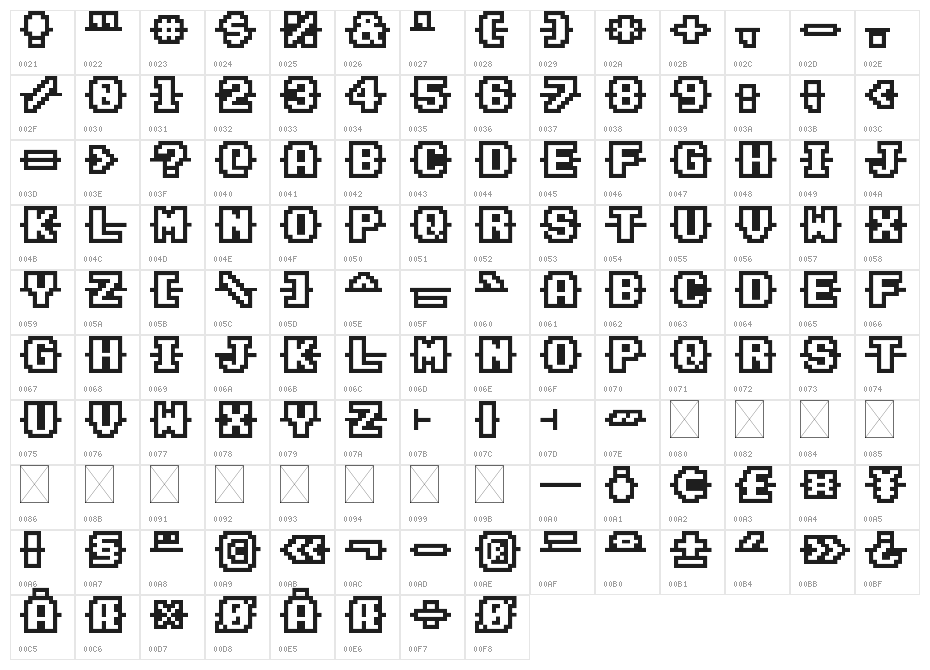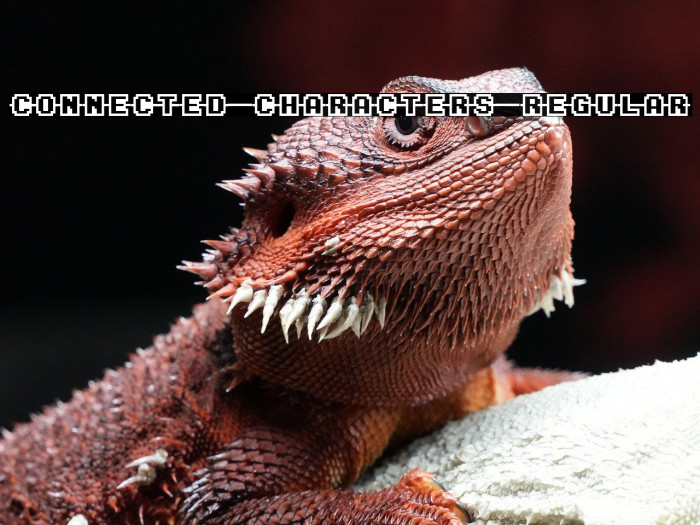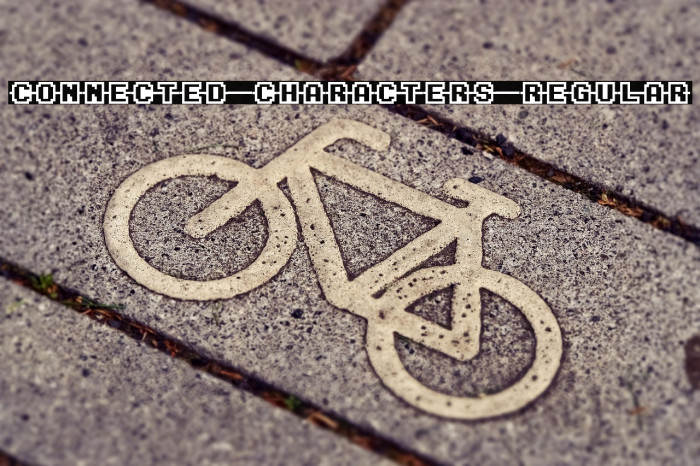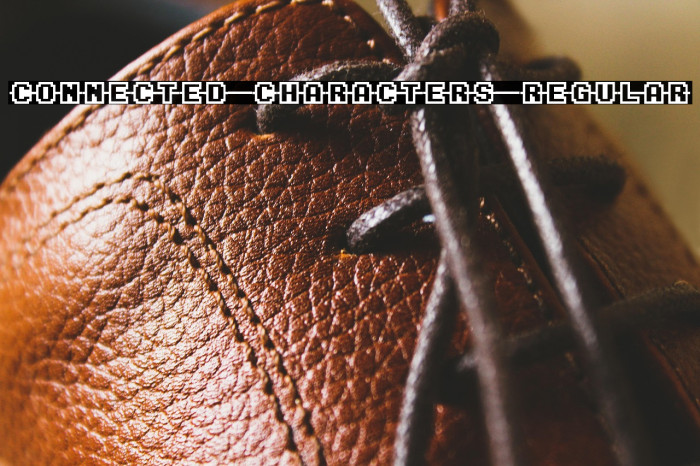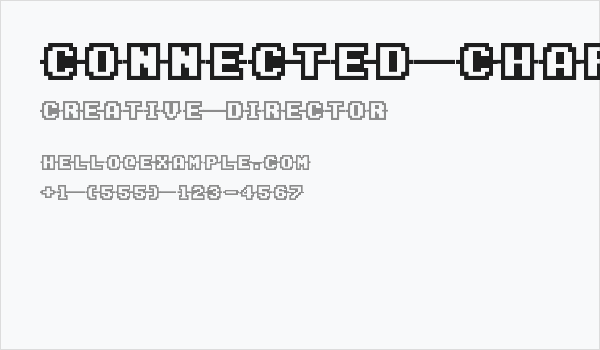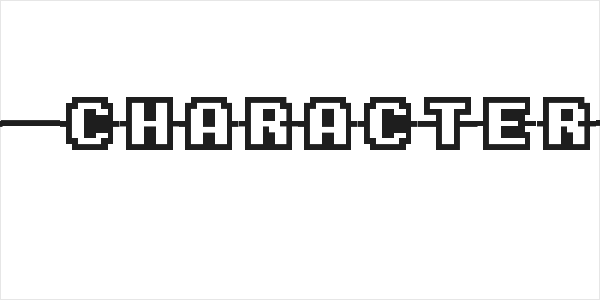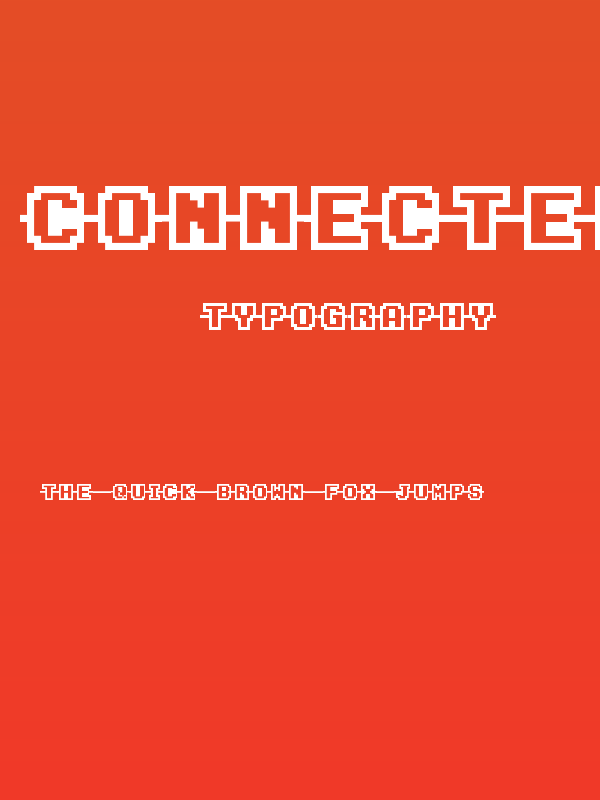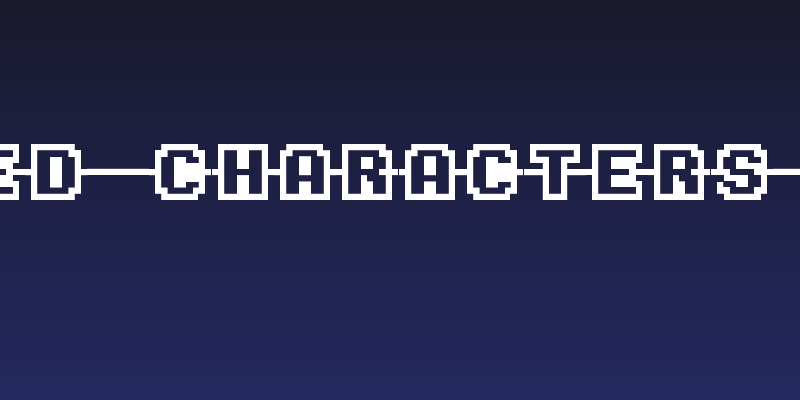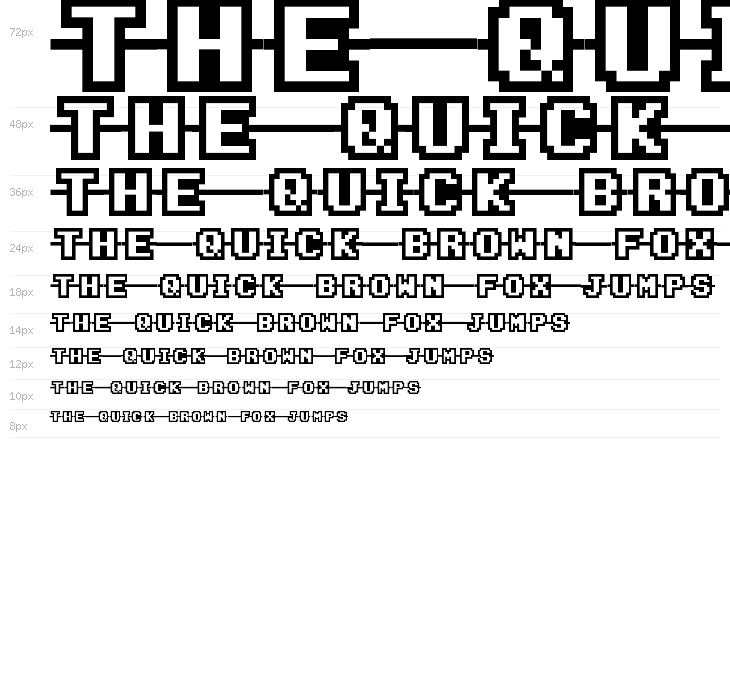
Connected Characters Regular Font
Connected Characters Regular Description
This font features a bold, pixelated style with a retro, digital appearance reminiscent of early video game graphics. Each character is constructed with a blocky, grid-like structure, giving it a distinct, geometric look. The uppercase and lowercase letters maintain a consistent height, while the numbers and special characters follow the same pixelated theme. The font's design is uniform, with each character appearing as if it were built from small square blocks, creating a cohesive and visually striking appearance. The thick outlines enhance its boldness, making it stand out in any design. This font is ideal for projects that aim to evoke a sense of nostalgia or a digital, tech-inspired aesthetic.
| Overall Style | Retro, Digital |
| Proposed Projects | Ideal for video game graphics, tech-themed posters, retro designs, and digital art projects. |